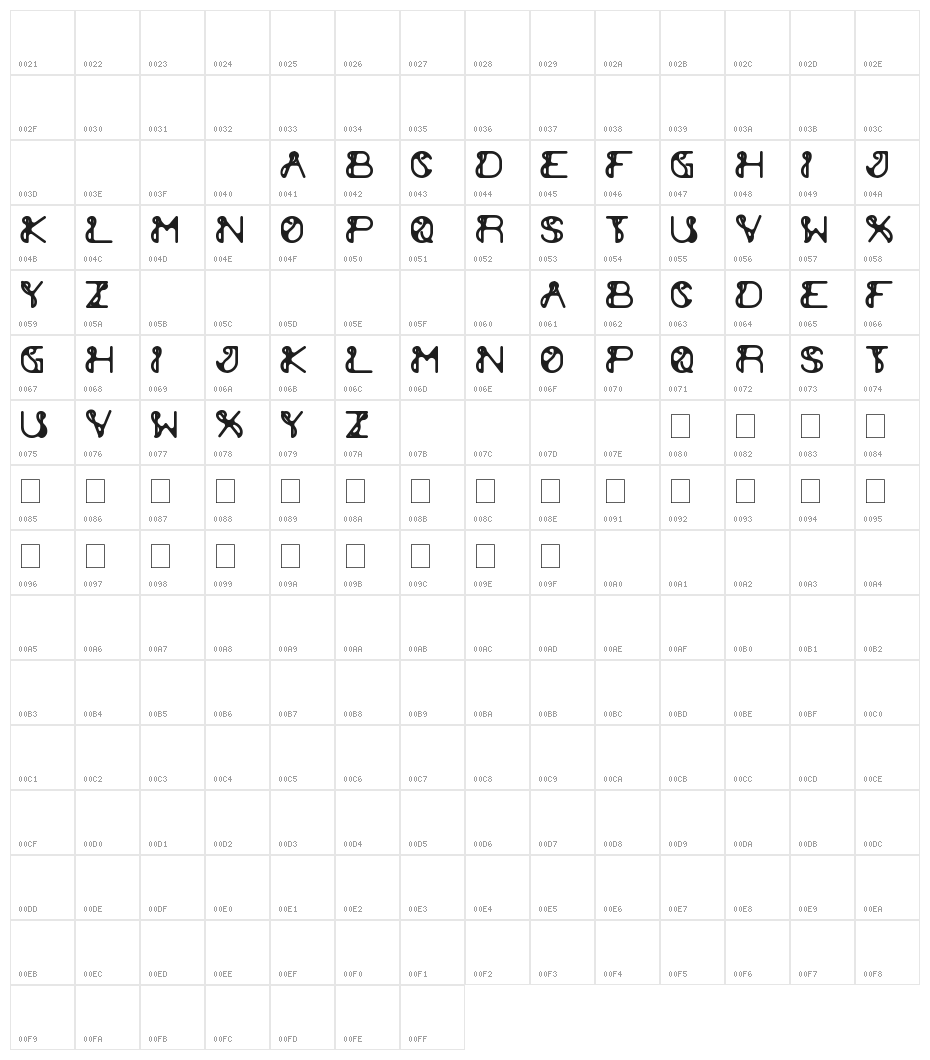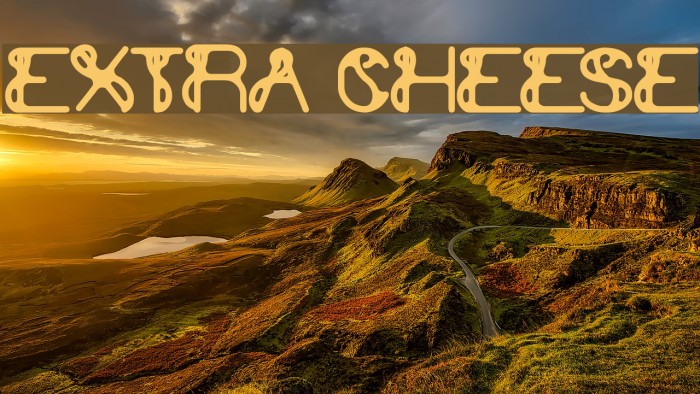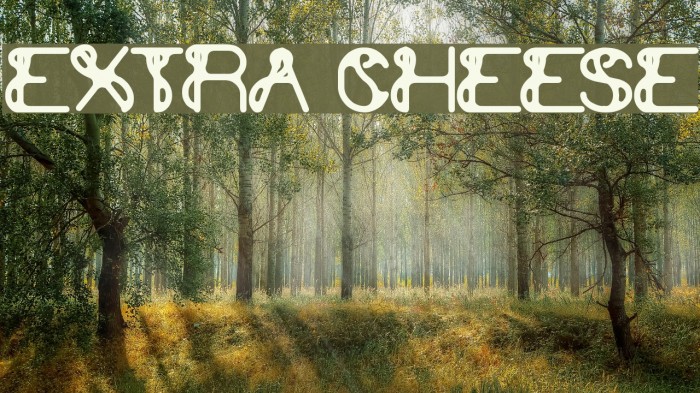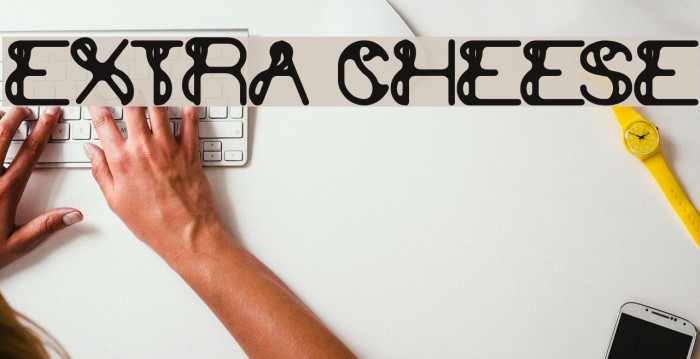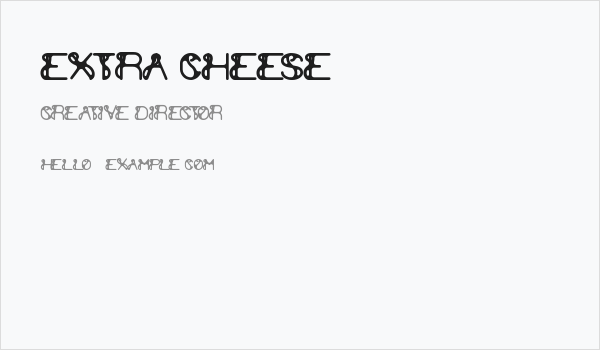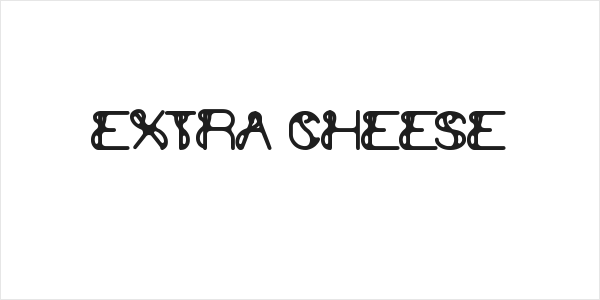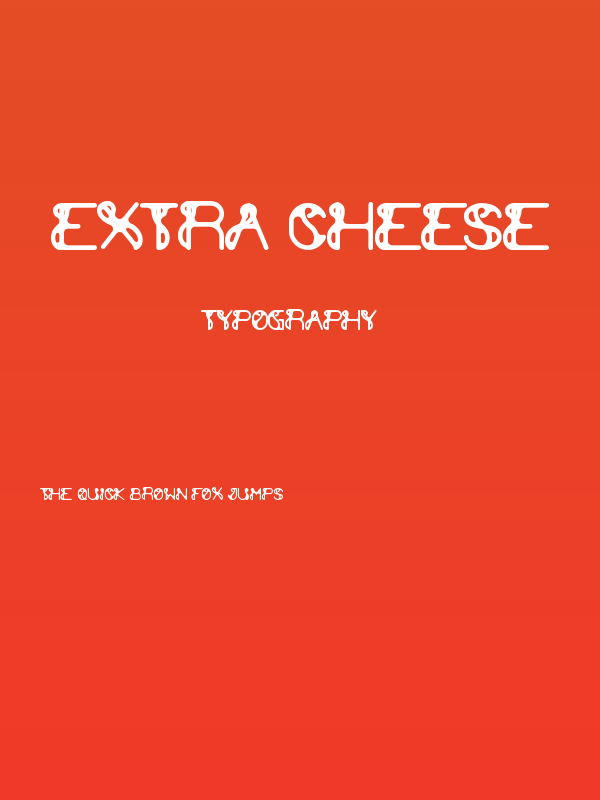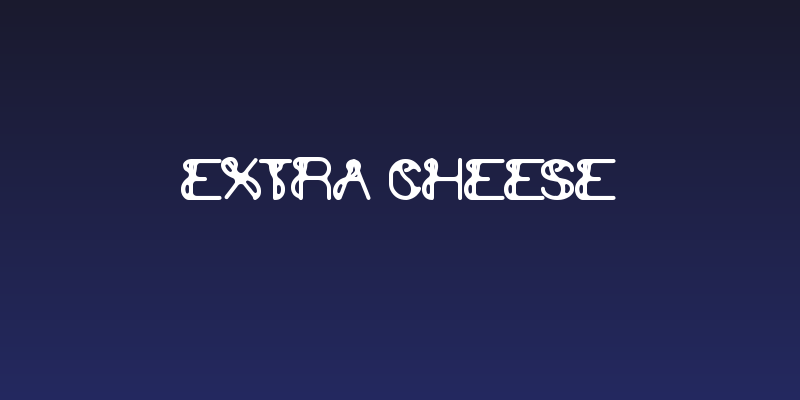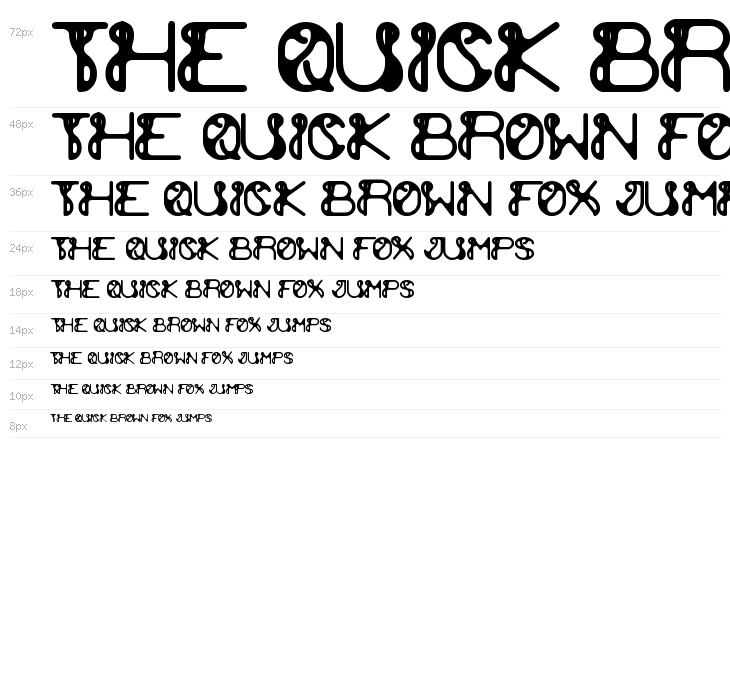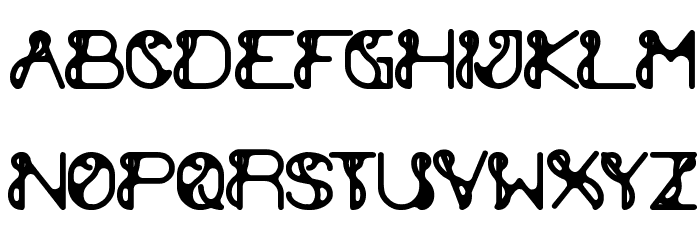
extra cheese Font
extra cheese Description
This font features a highly decorative and unique style, characterized by its intricate loops and swirls that connect each letter. The design is bold and eye-catching, with a playful yet sophisticated aesthetic. Each character is crafted with a series of rounded, interconnected shapes that create a sense of movement and fluidity. The font maintains a consistent thickness throughout, adding to its cohesive look. Its artistic flair makes it suitable for creative projects that require a standout typeface.
| Use Case | Logos, Posters, Invitations |
| Proposed Projects | Ideal for artistic projects, branding, posters, and invitations where a unique and decorative typeface is desired. |